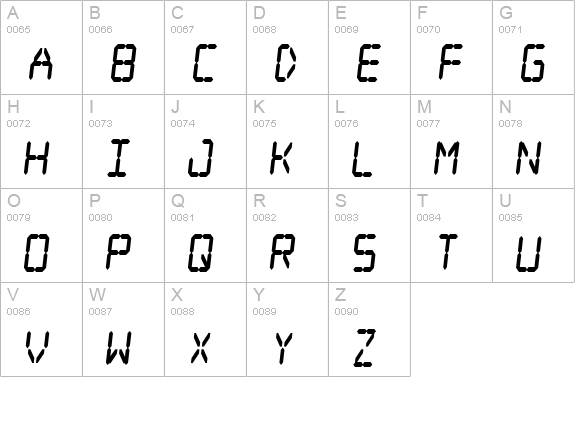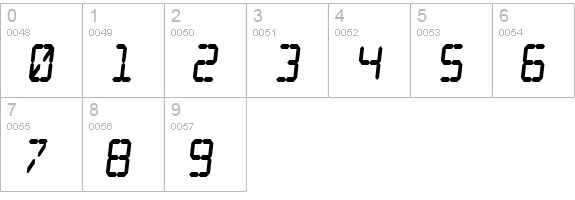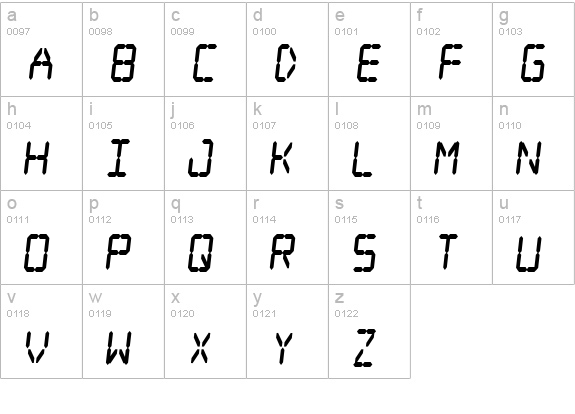
Digital dream Fat Skew Narrow is a distinctive, condensed-width variant in the Digital typeface family \xE2\x80\x94 well suited to design and typography projects.
Digital Dream Fat Skew Narrow font is a bold and eye-catching typeface that is perfect for adding a modern and stylish touch to your designs. With its unique skew and narrow characteristics, this font exudes a sense of creativity and innovation. Its sleek and contemporary appearance makes it versatile for various design projects, from logos to posters to social media graphics. The best part is that Digital Dream Fat Skew Narrow font is available for free download at FontsMarket.com. This means you can easily access this font and use it in your projects without any cost. Whether you are a professional graphic designer or a hobbyist looking to enhance your creations, this font is a great addition to your font library. Add a touch of sophistication and flair to your designs with Digital Dream Fat Skew Narrow font today!